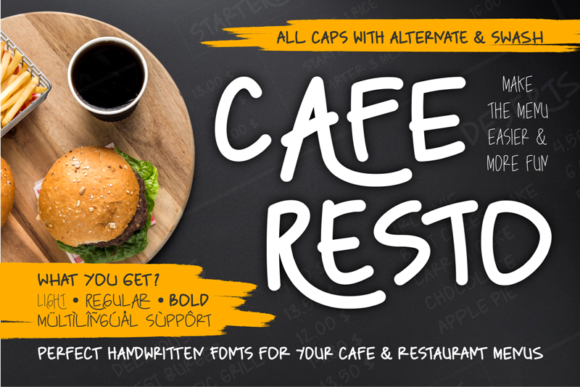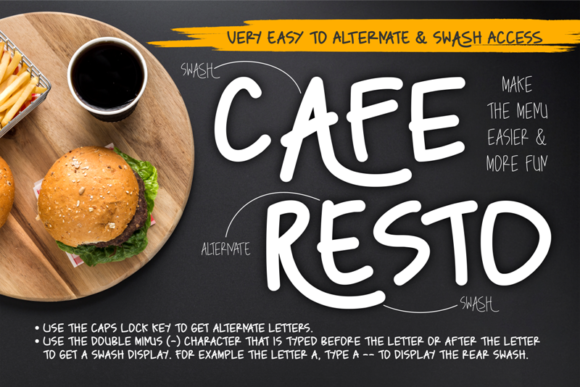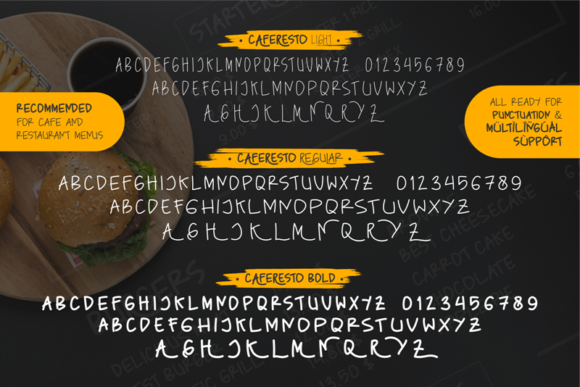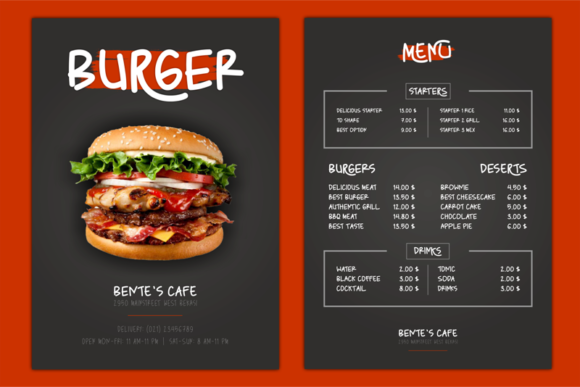
Caferesto Font
About Caferesto Font
Caferesto is a cute and casual handwritten font with an incredibly friendly feel. Whether you’re looking for fonts for Instagram or calligraphy scripts for DIY projects, this font will turn any creative idea into a true piece of art!